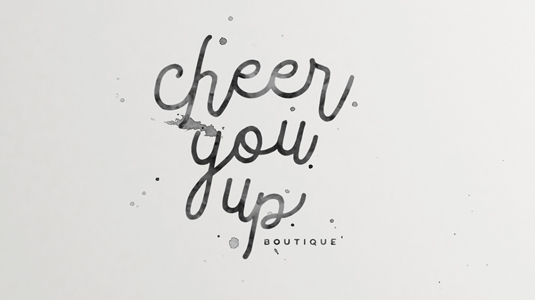
Font of the day: Bleakerst
Bleakerst by Agga Swist'blnk
Designer Agga Swist'blnk is no stranger to our font of the day posts, with a number of beautiful typefaces under her belt. And today's offering is no exception. A modern font with a vintage touch, Bleakerst is great for stationery, logos and much more.